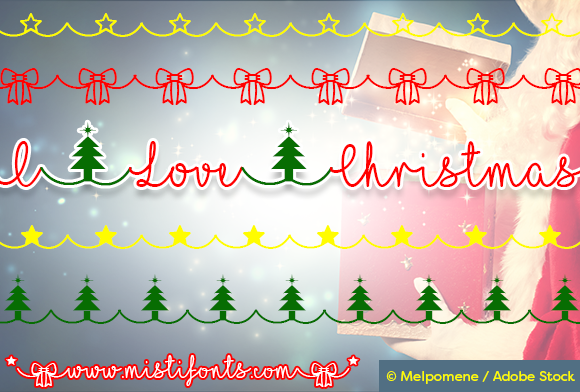
I Love Christmas Font
About I Love Christmas Font
I love Christmas is the ultimate Christmas themed font created by Misti’s fonts.
This stunning font brings the spirit of Christmas right into your designs.